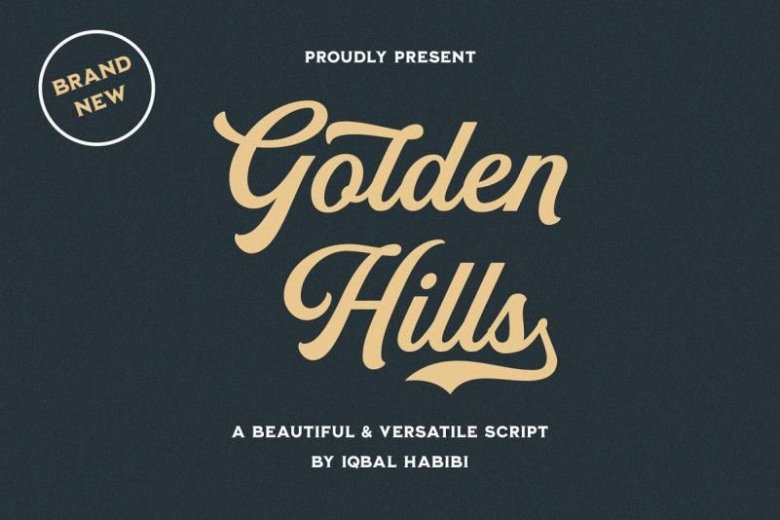
Golden Hills Script Font
Hello world! This is a new fresh handmade calligraphy font. It’s a one-of-a-kind typeface with a personal feel. use titling to give different letter effects, making it even more elegant.
Introducing Golden Hills Font. It is was designed by iqbal habibi. It’s a beautiful script inspired by handlettering works. It’s has many alternative characters, also come with 2 style end swashes with 4 different length and ligatures.
Great for create lettering works, logotype, tshirt design, packaging design, signboard, poster, and many more. Golden Hills will give your design works more stylish and artistic.